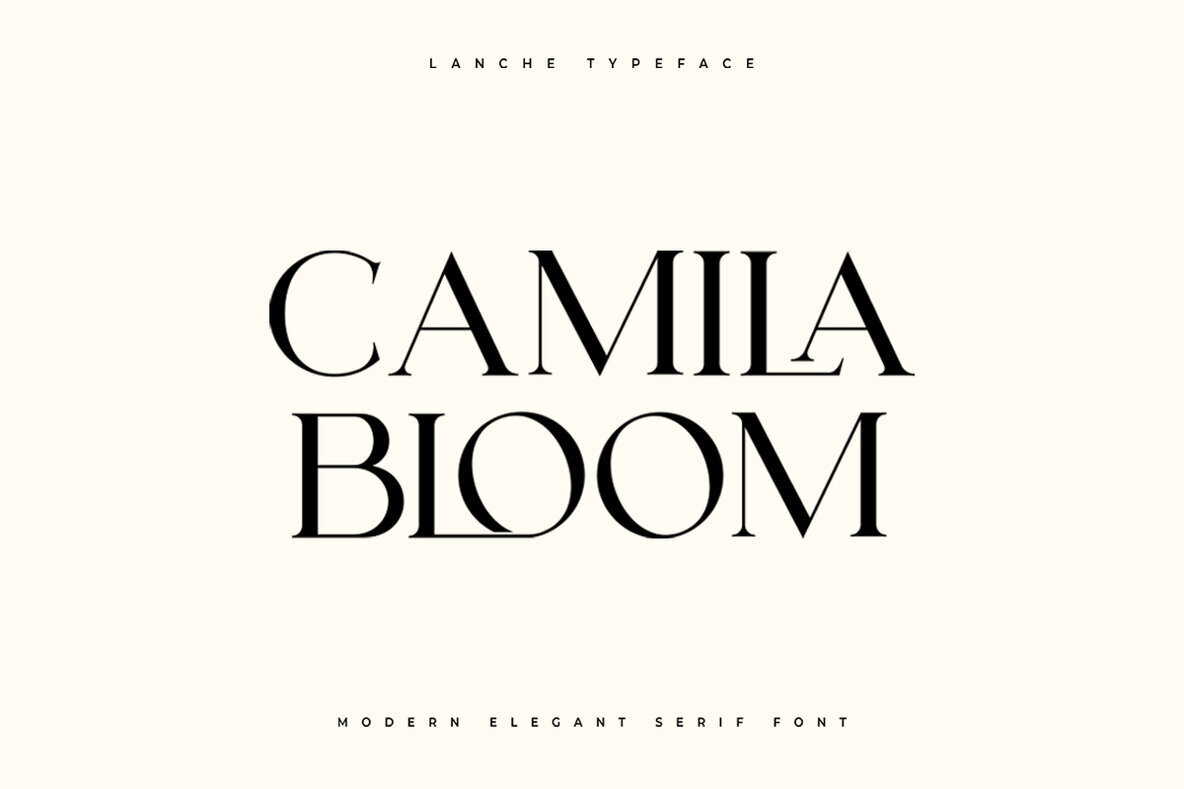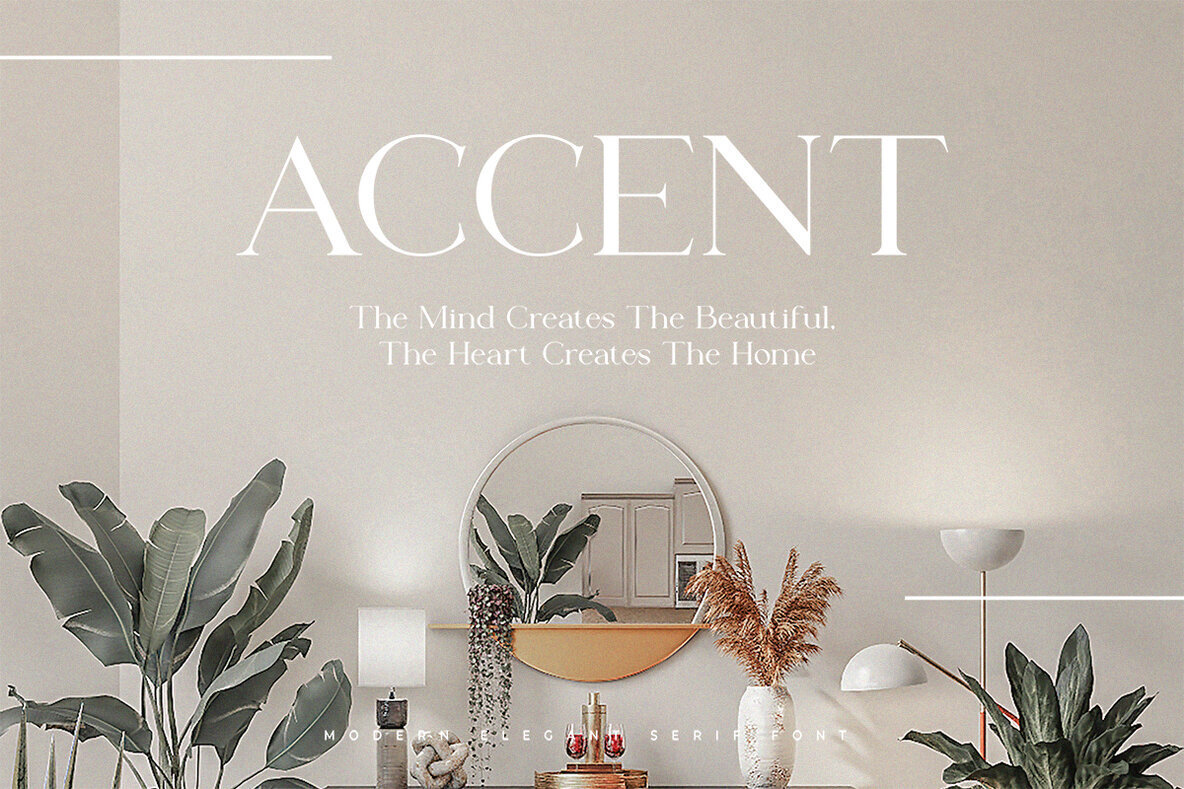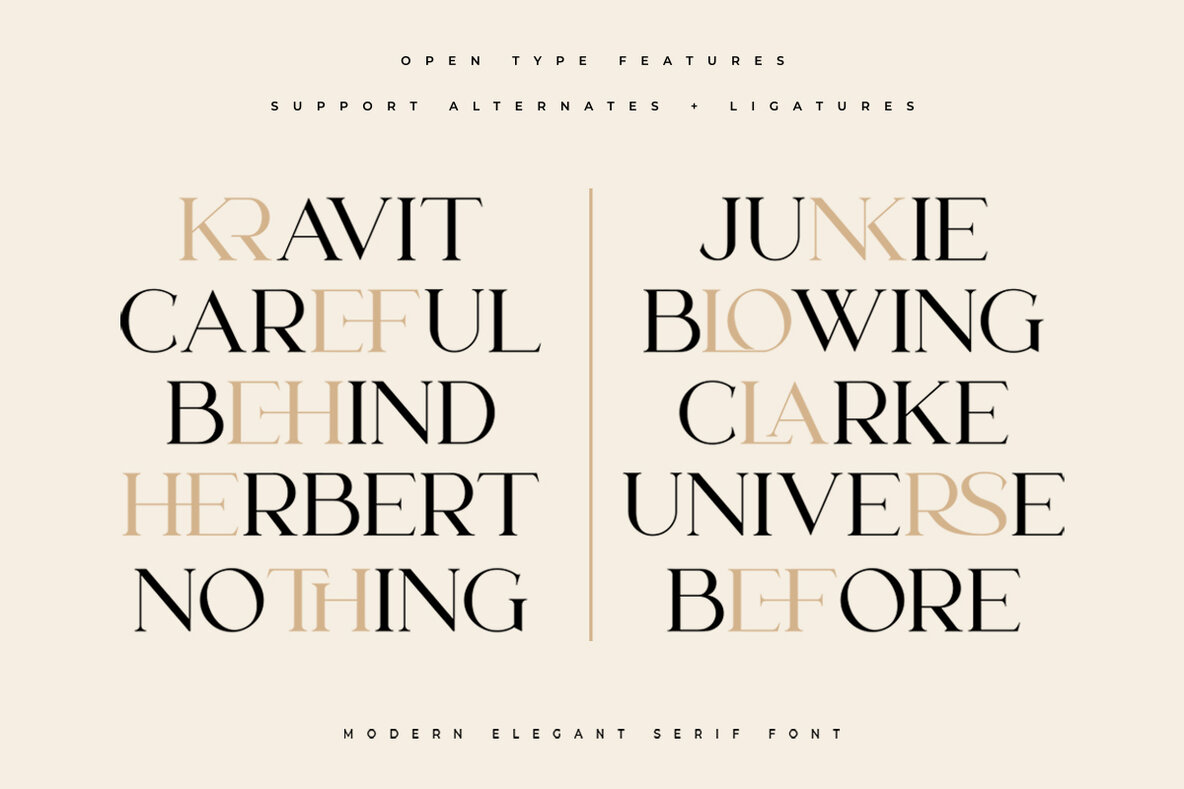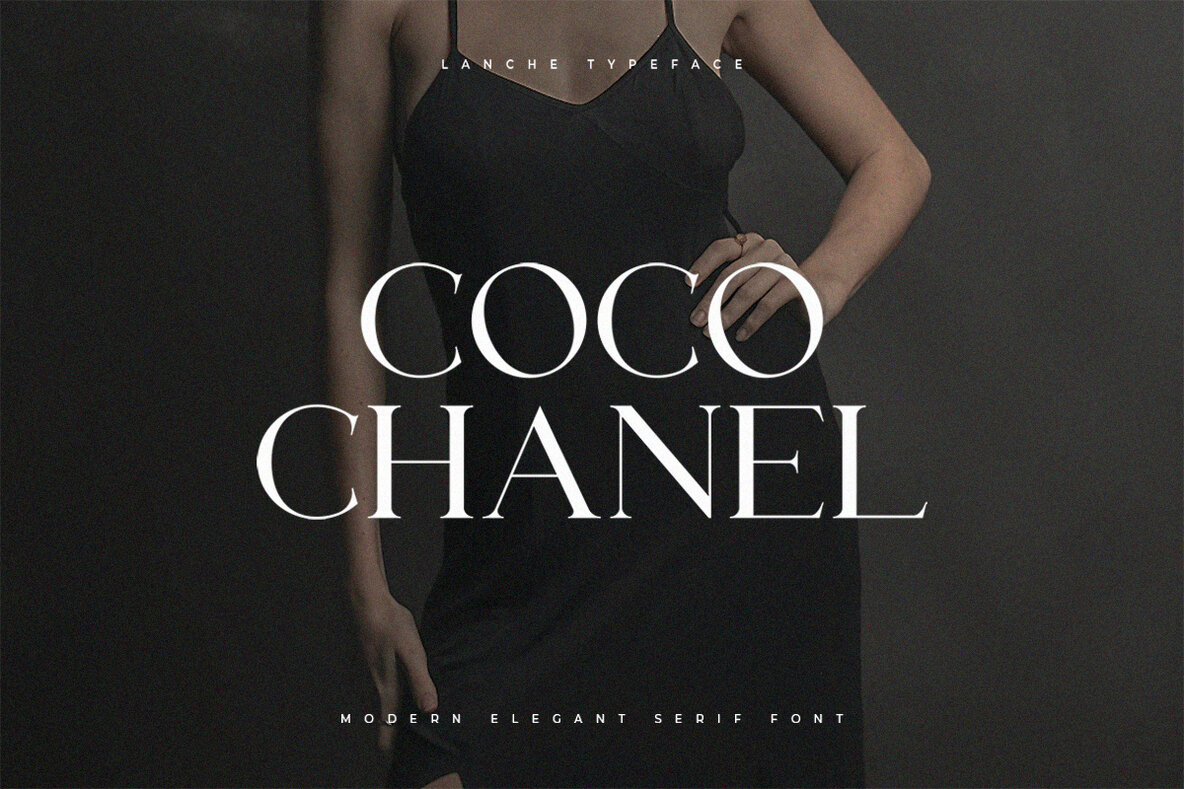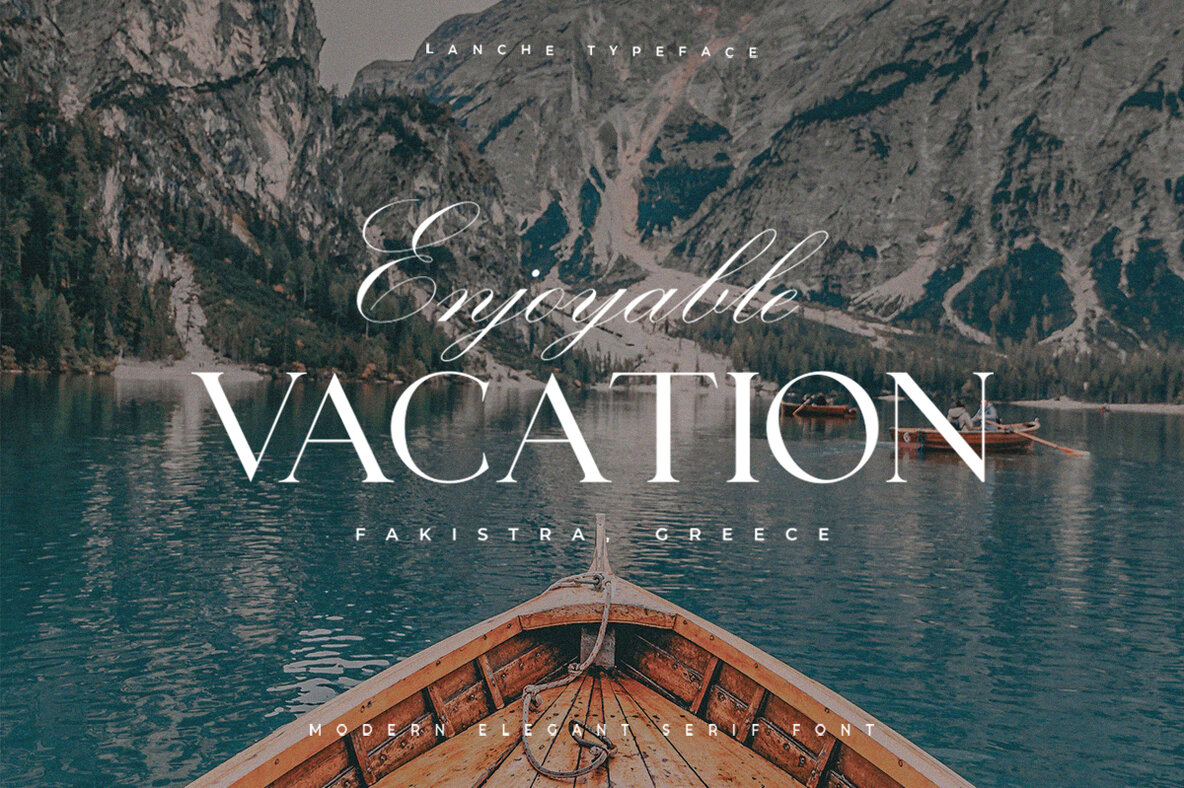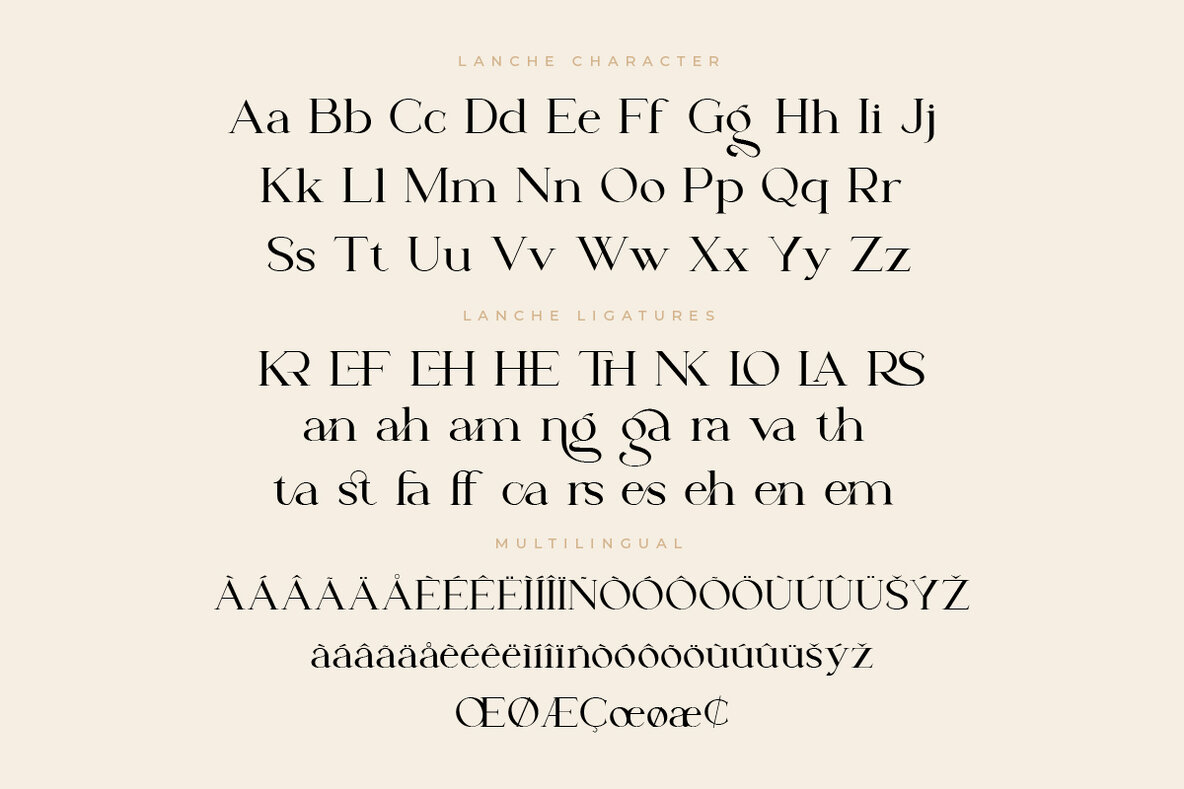
Lanche Font
Lanche
Lanche offers a sophisticated serif typeface, embodying contemporary elegance with its finely crafted strokes. Ideal for graphic designers seeking a timeless yet modern edge, Lanche brings an air of refinement to any project.Lanche: Modern Elegance in Serif Typography